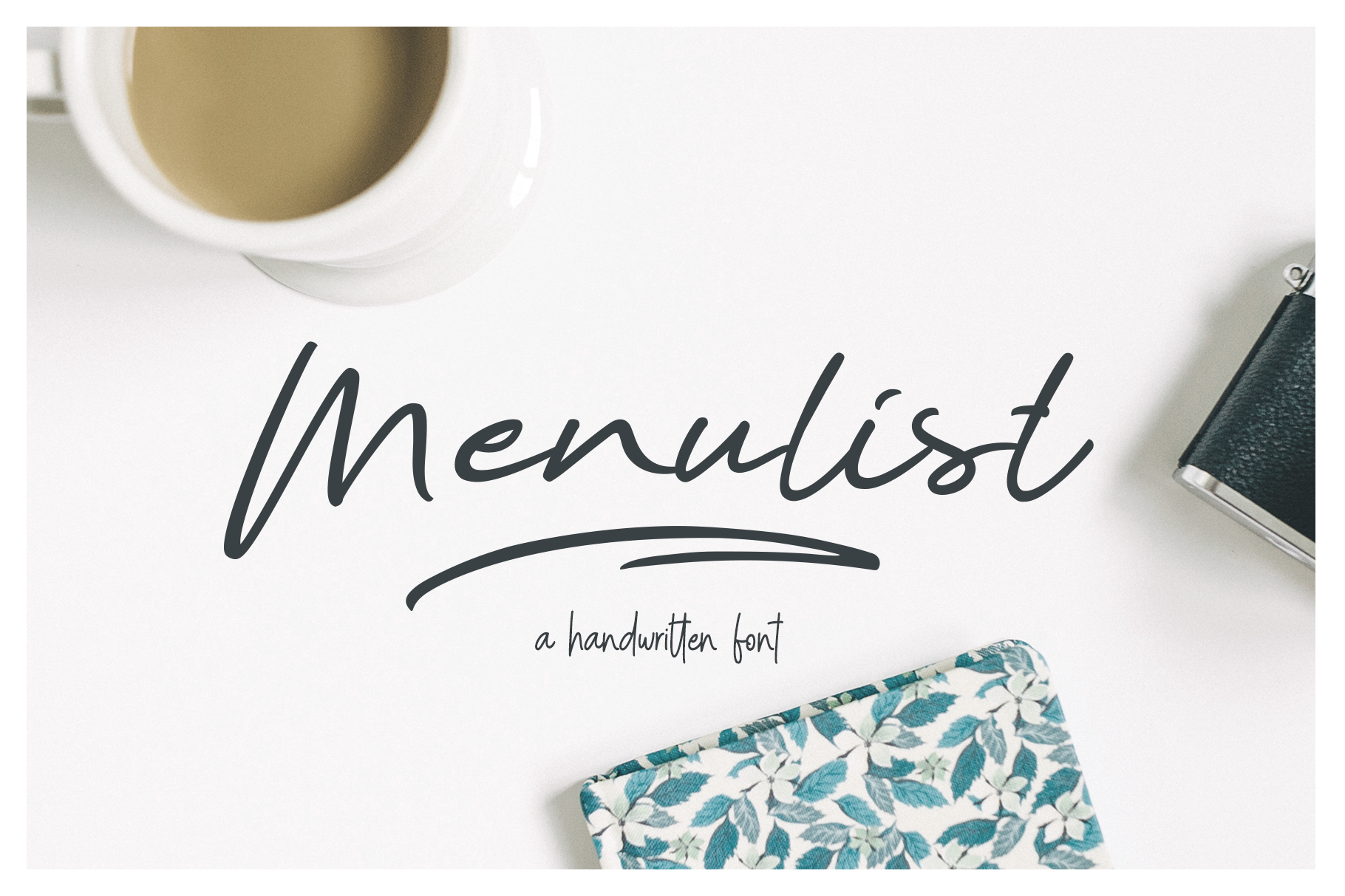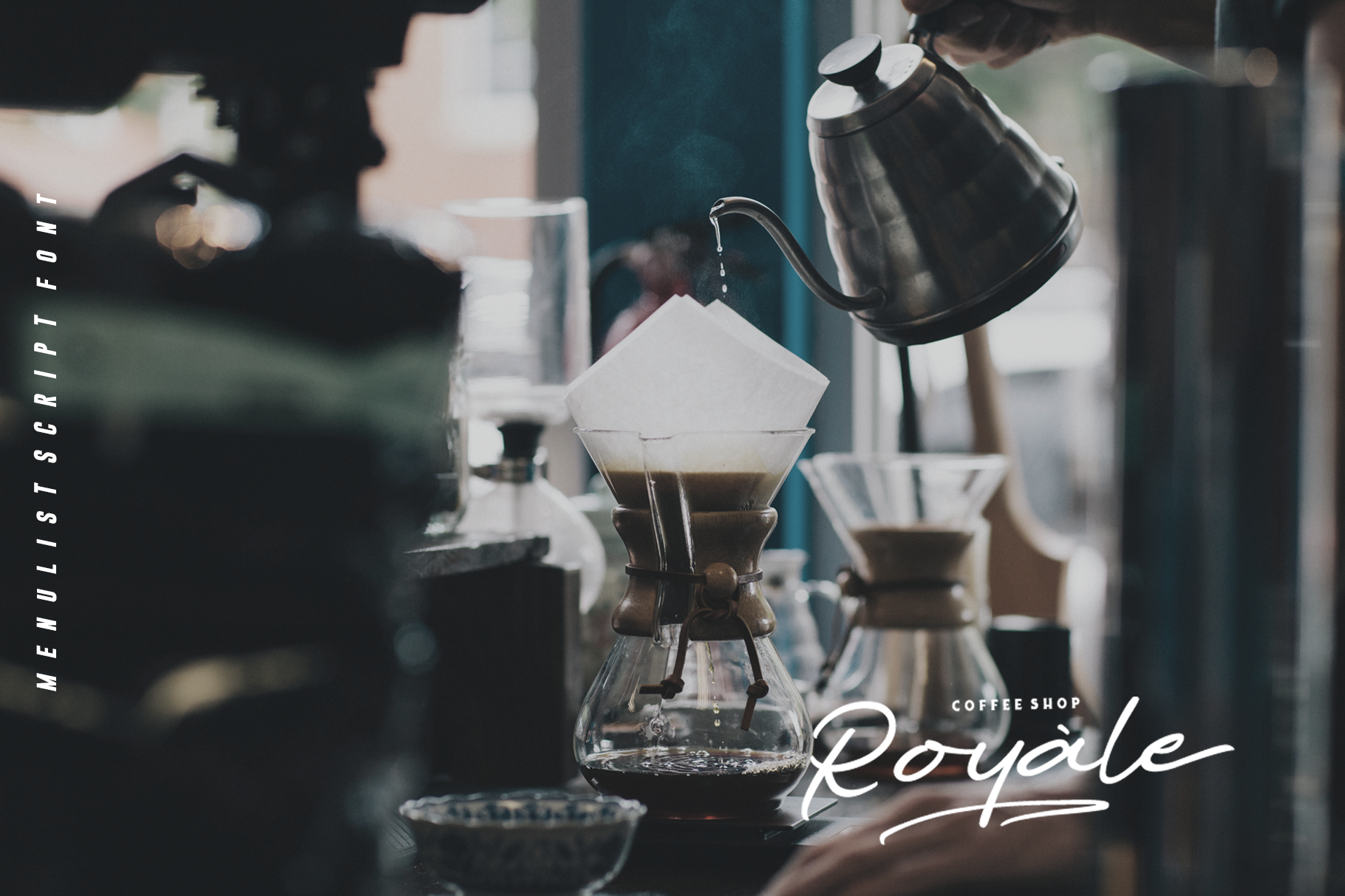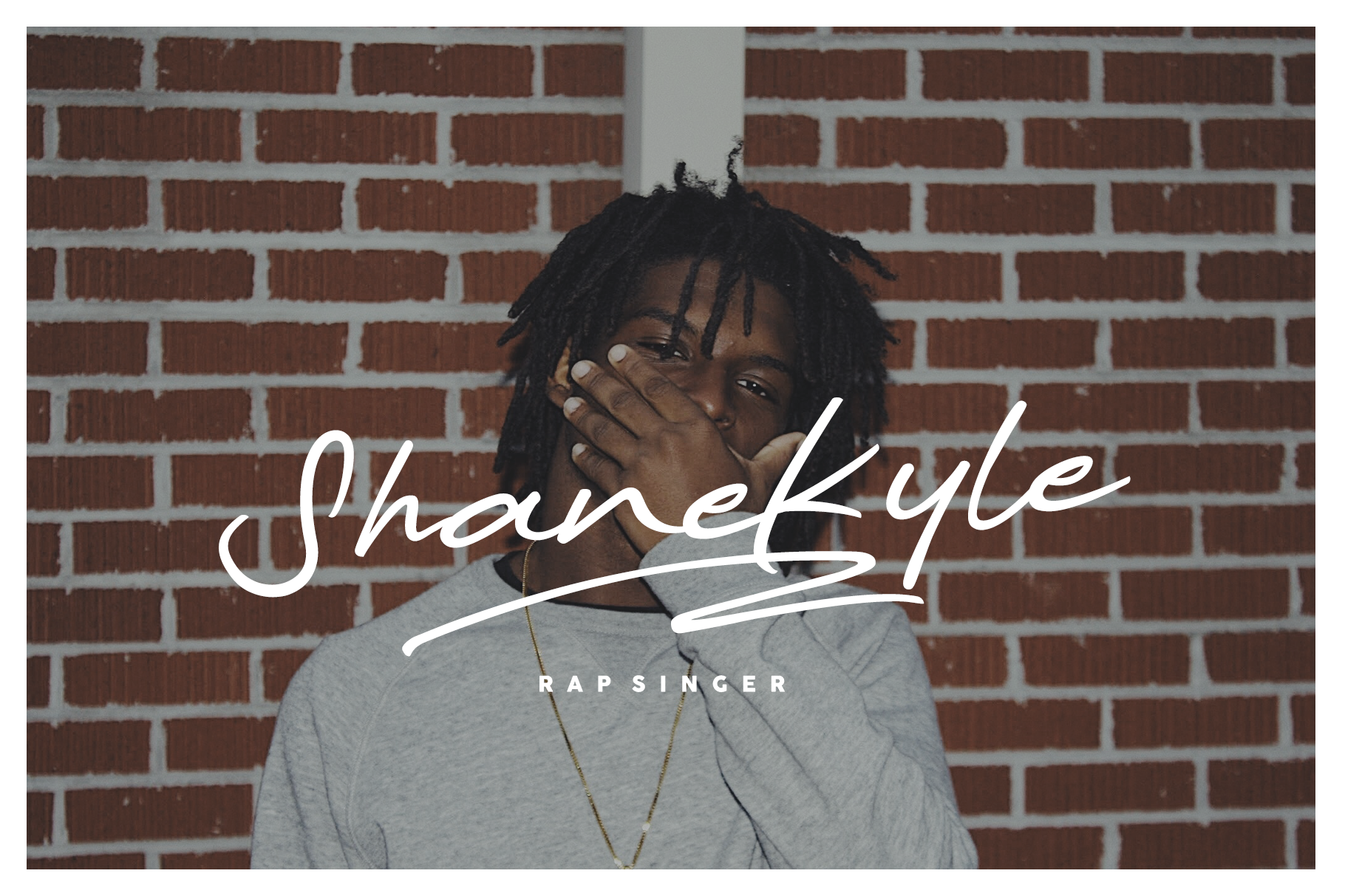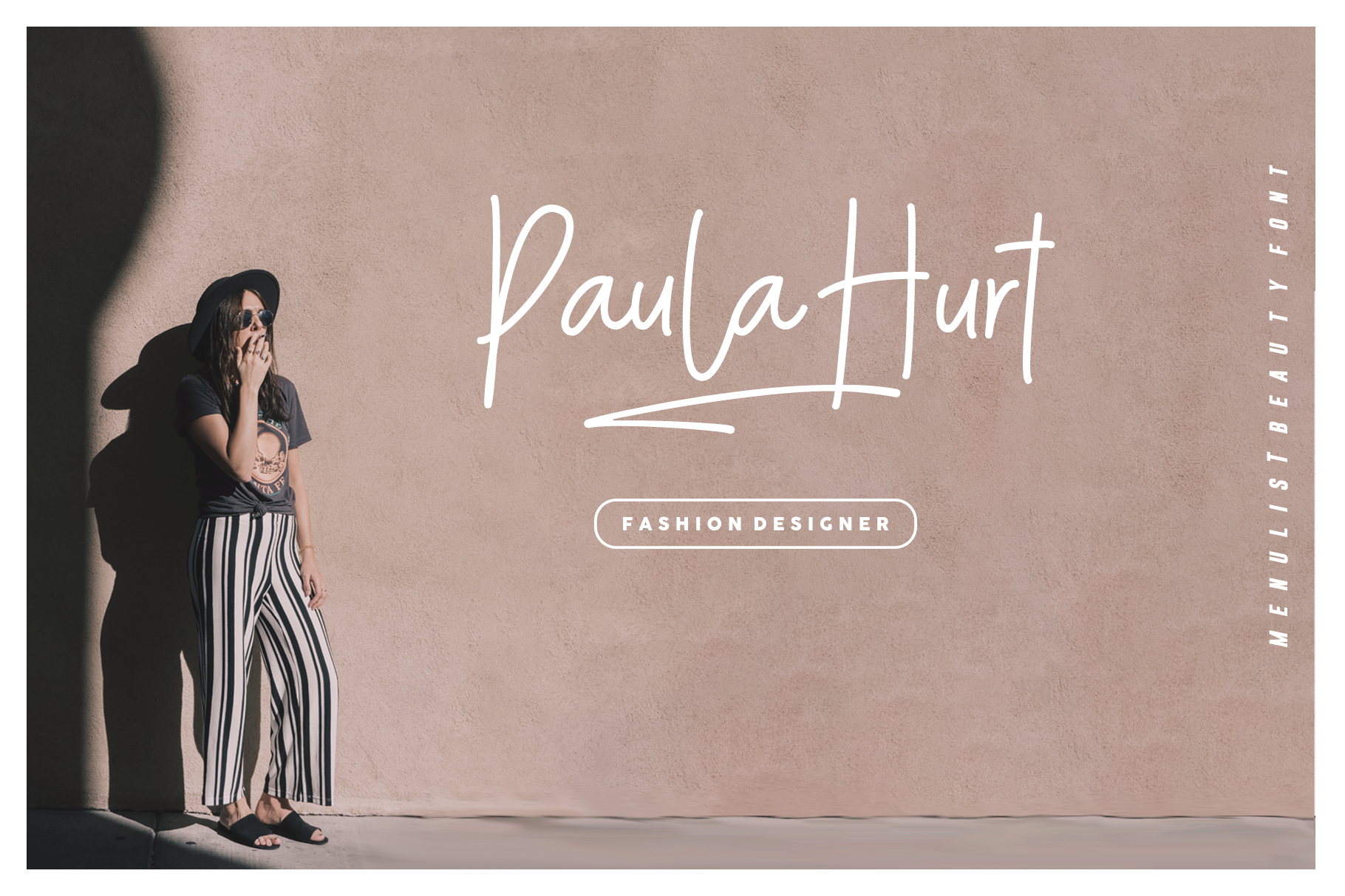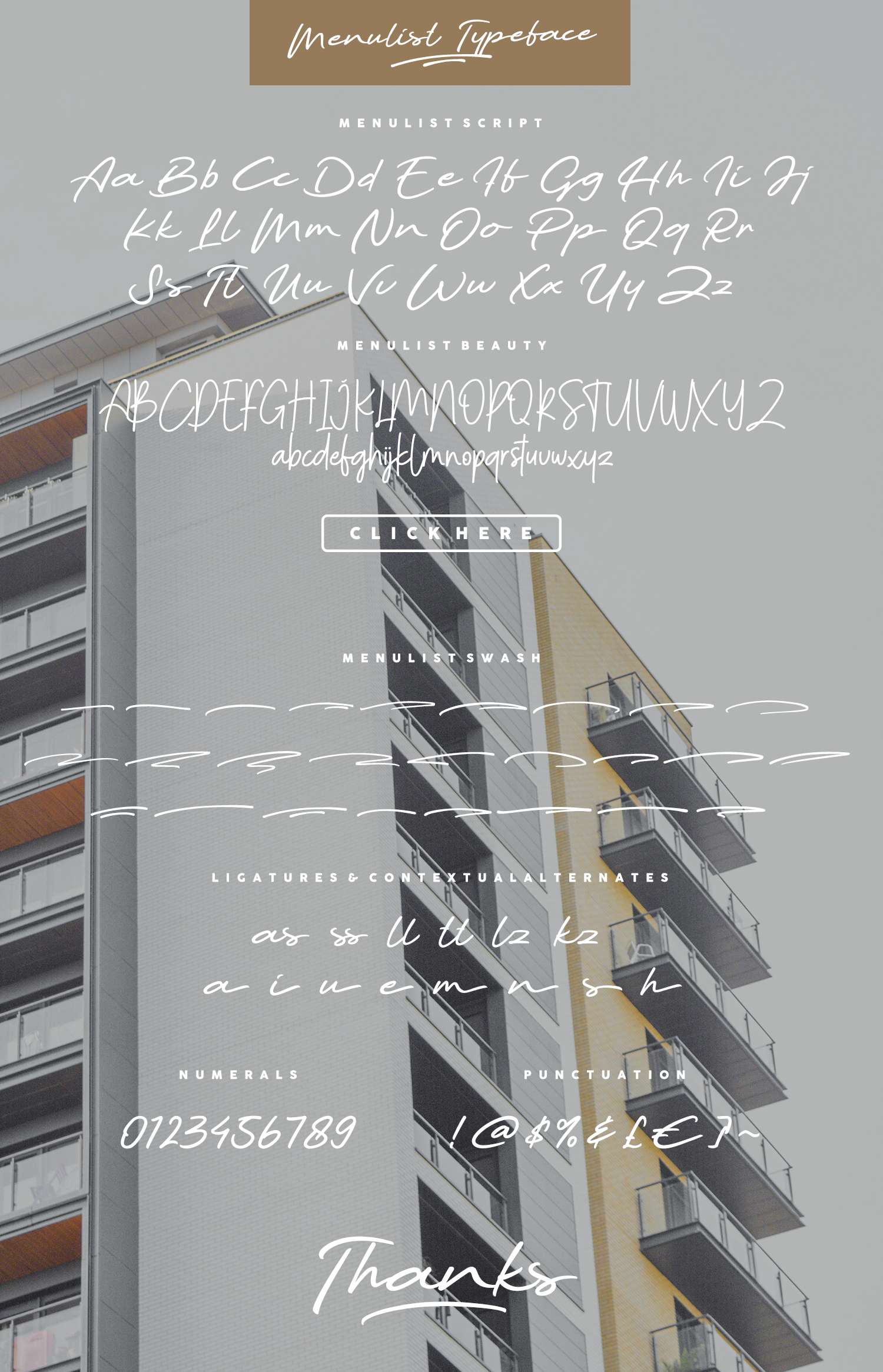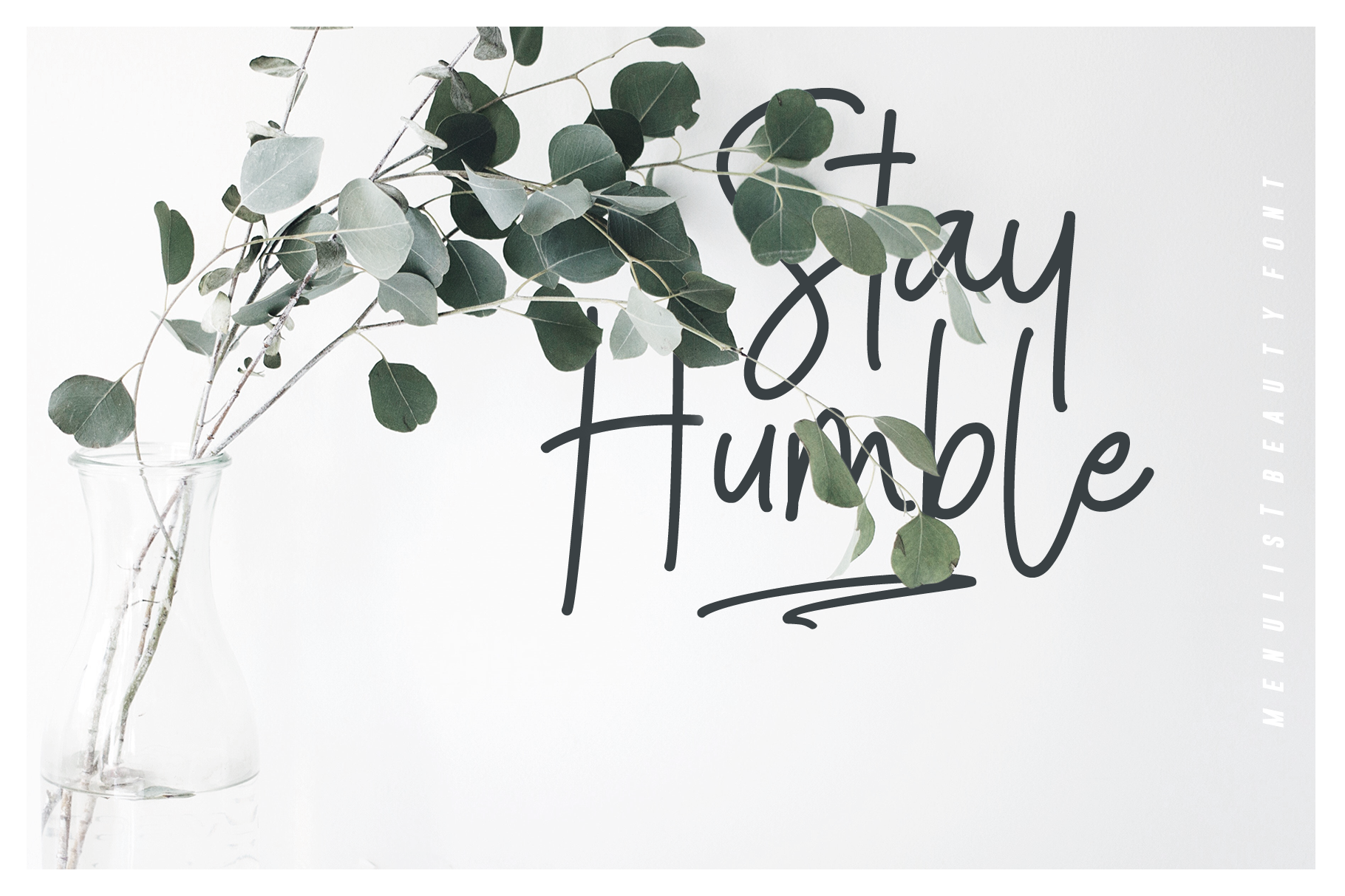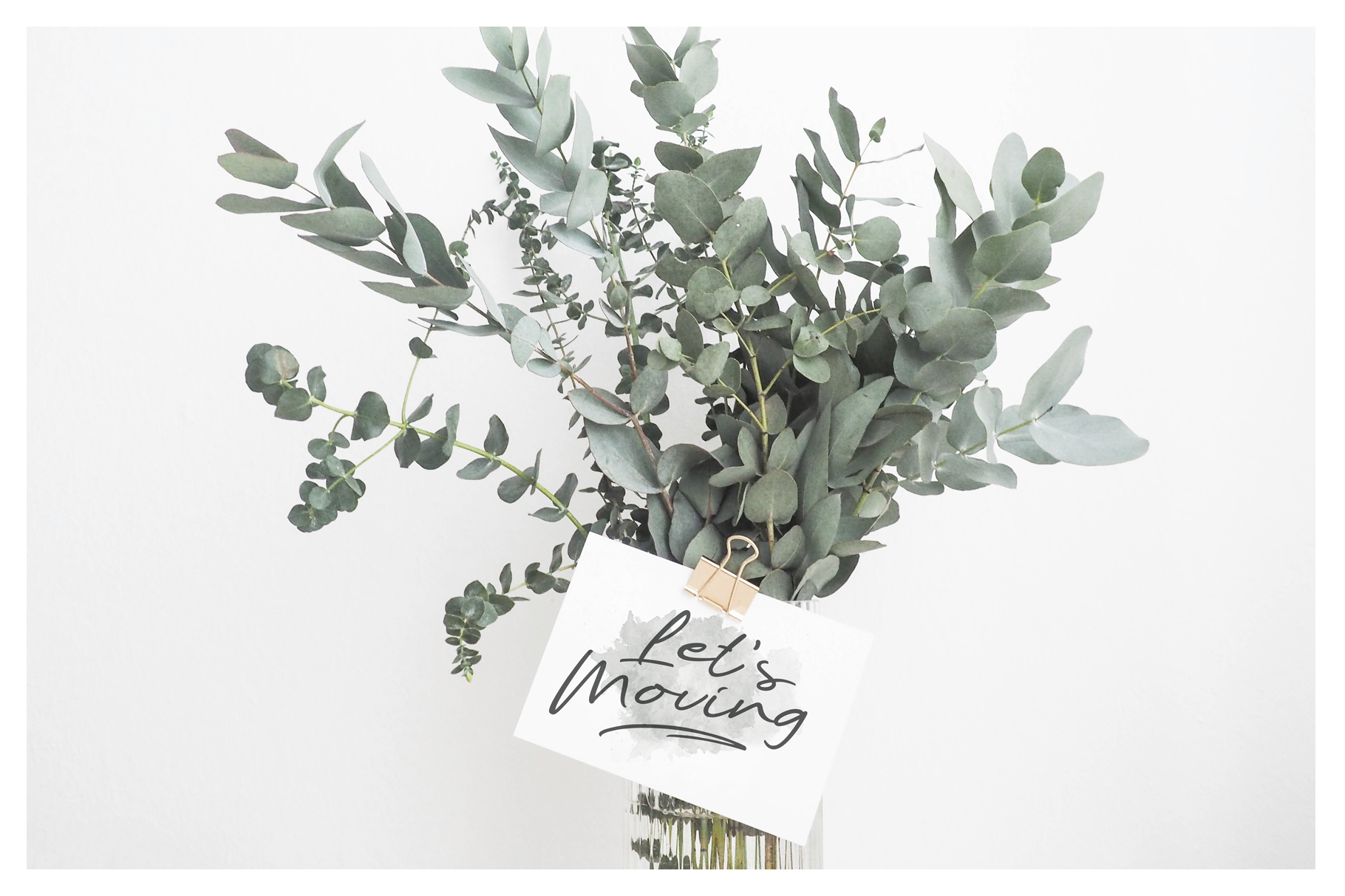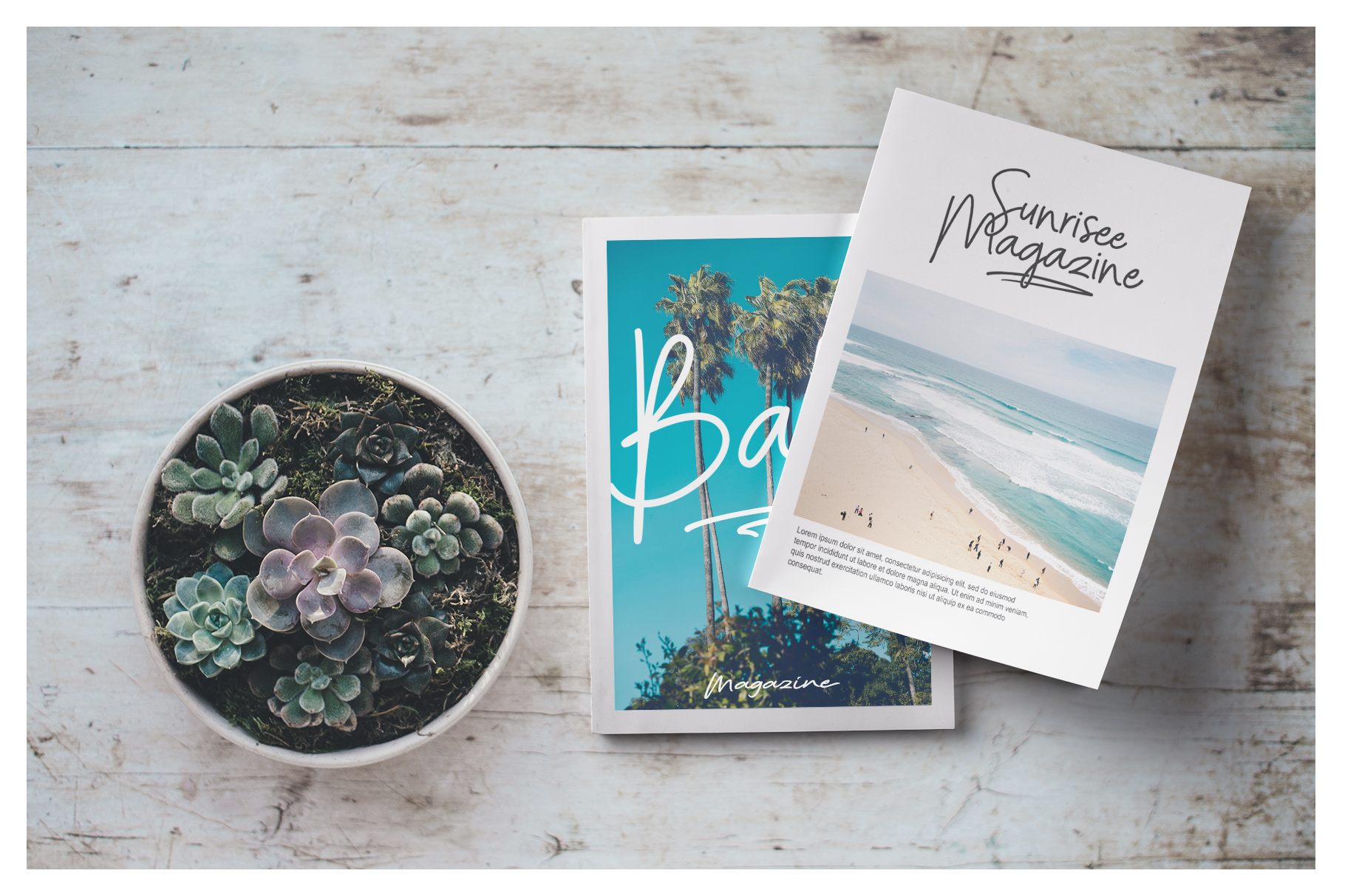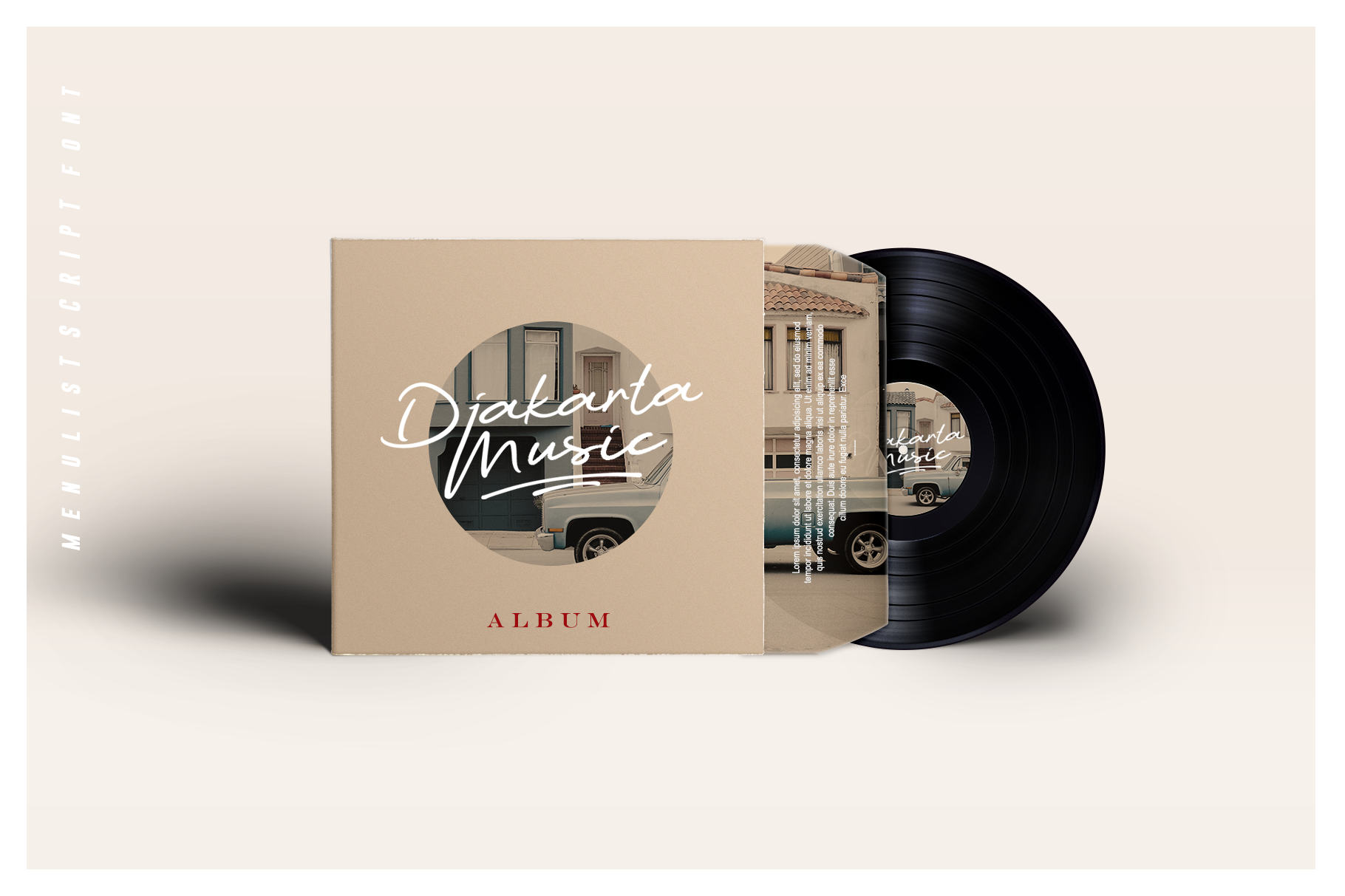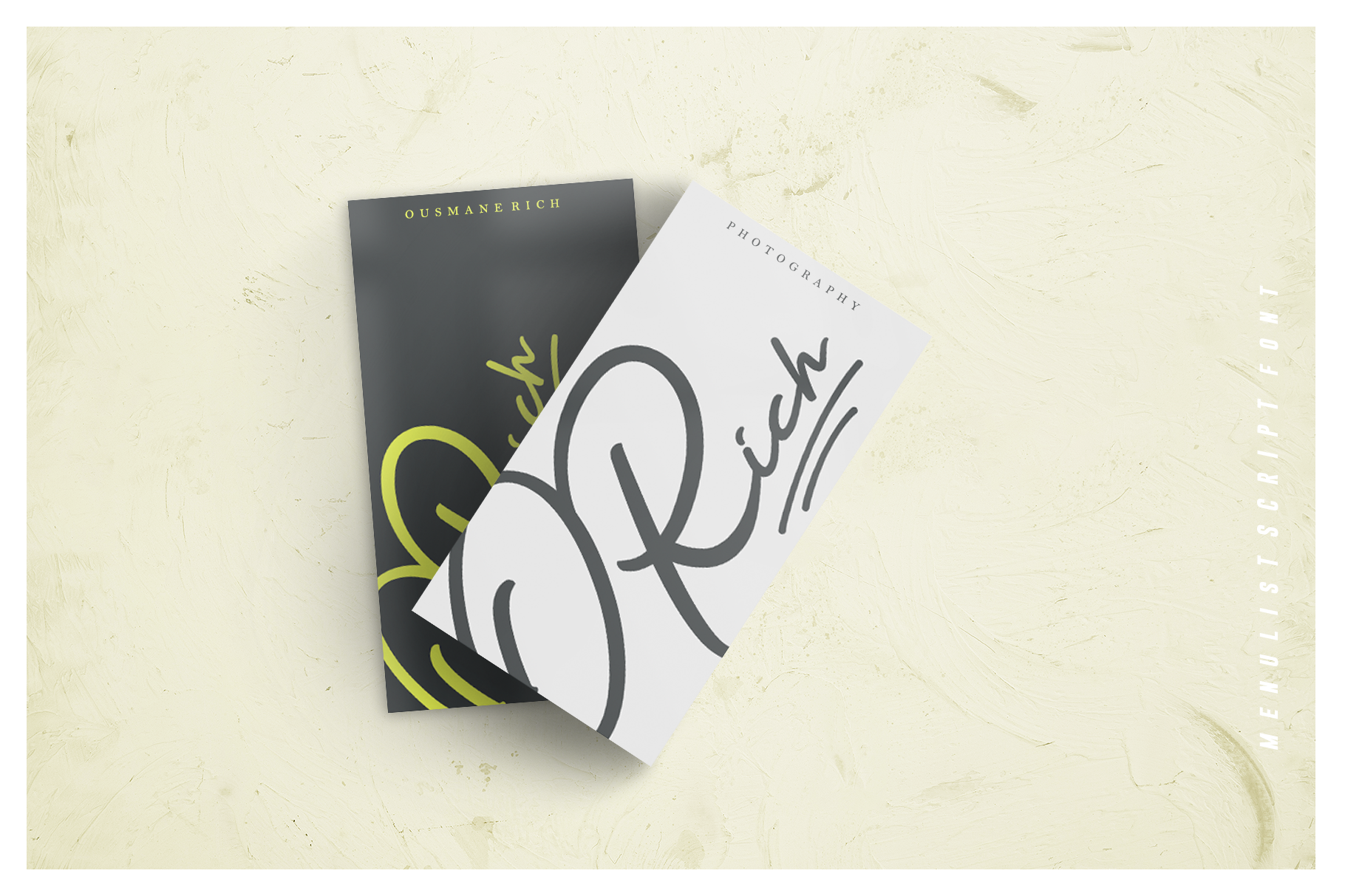
Menulist Font
Menulist Script is a signature-style handwritten font. It works very well for a large range of different projects.
It has a minimalist style, helping you to make it stand out of the crowd.